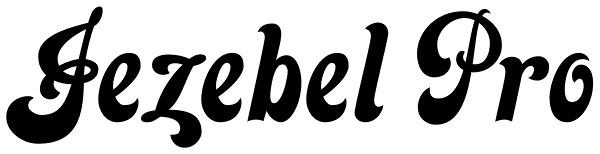
Jezebel
Jezebel is all dressed up for you. And if she can't make your mouth water and eyes light up with love, nobody else can. She's got bigger hair than Dolly and Elvira together, more tongue than a Kiss concert with Jagger opening, more leg than a Moulin...
Jezebel Bonus
Jezebel Bonus Words
Jezebel
Jezebel Alt
Jezebel Pro